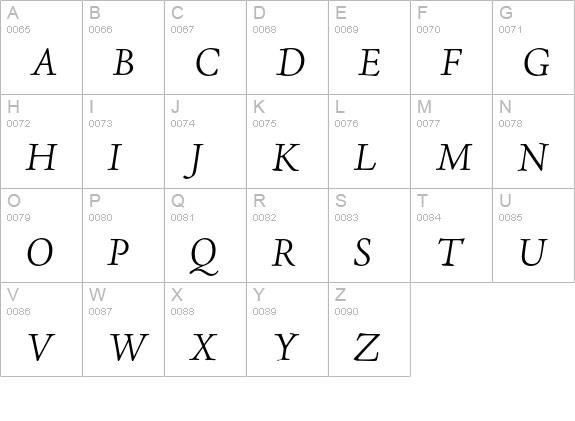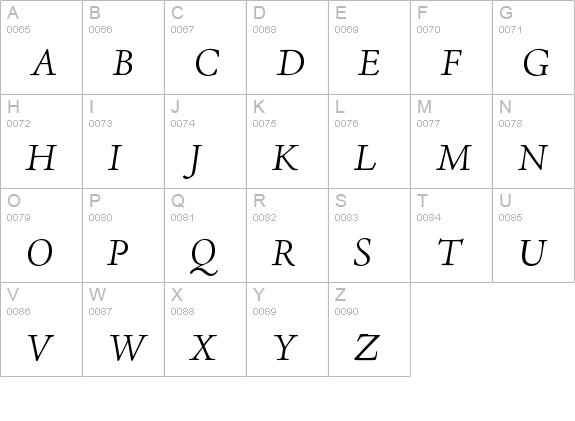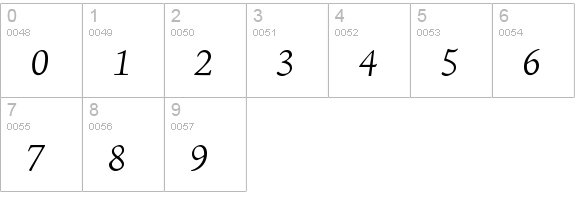
Adobe Jenson Pro Light Italic is a refined, elegant, italic variant in the Adobe typeface family \xE2\x80\x94 well suited to elegant body text, refined sub-headings, and luxury branding.
Adobe Jenson Pro Light Italic is a captivating and elegant typeface that exudes sophistication and charm. Its delicate curves and slanted design add a touch of grace and fluidity to any text it graces. Perfect for conveying a sense of refinement and style, this font is ideal for projects that require a touch of class. And the best part? Adobe Jenson Pro Light Italic is available for free download at FontsMarket.com. Now you can bring a touch of luxury to your designs without breaking the bank. Don't miss out on this opportunity to elevate your projects with this exquisite font. Download Adobe Jenson Pro Light Italic today and add a touch of elegance to your creations.